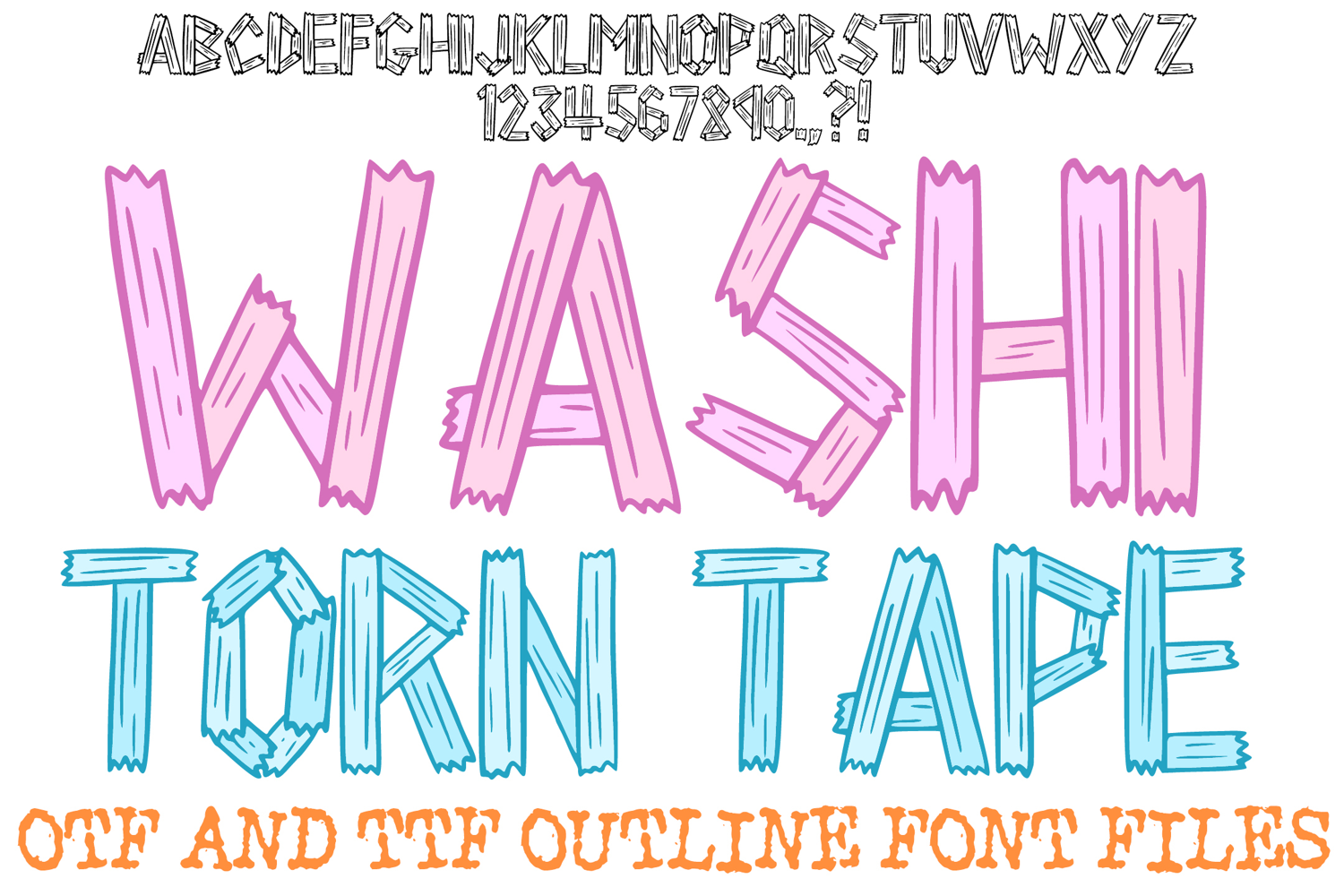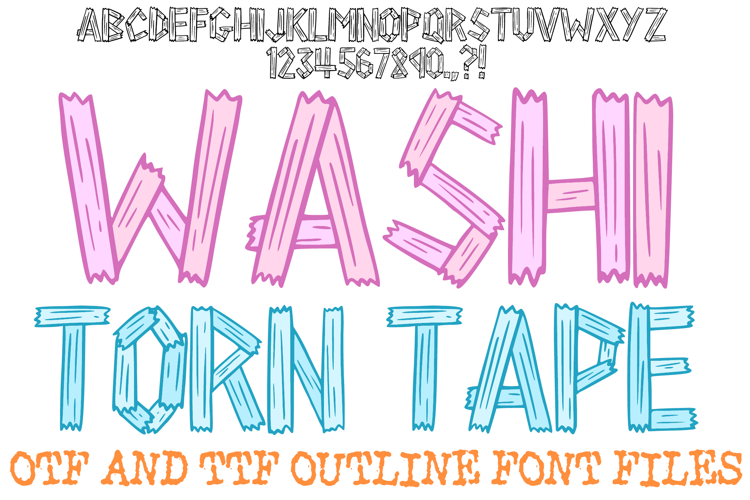
Washi Torn Tape Font Scrapbook Typography Lettering ABC
Give your designs a tactile, DIY feel with the Washi Torn Tape Font! This charming display alphabet is meticulously hand-drawn to look like characters constructed from individual strips of adhesive tape. Each letter features realistic jagged, torn ends and a subtle wood-grain or fiber texture within the strips, making it a perfect fit for digital scrapbooking, planner layouts, classroom decor, and whimsical branding projects.
The layered construction of each character provides a unique, "stuck-on" aesthetic that brings a creative, handmade soul to your text. Whether you are designing a craft blog header, personalized gift tags, or a playful social media graphic, this font offers a versatile and friendly look that stands out.
Authentic Tape Texture: Every character features hand-drawn fiber details and overlapping layers for a 3D tape effect.
Torn Edge Detail: The jagged, uneven ends of each strip provide a realistic "torn by hand" appearance.
Creative Construction: Letters are uniquely built from vertical, horizontal, and diagonal "strips" for a cohesive craft look.